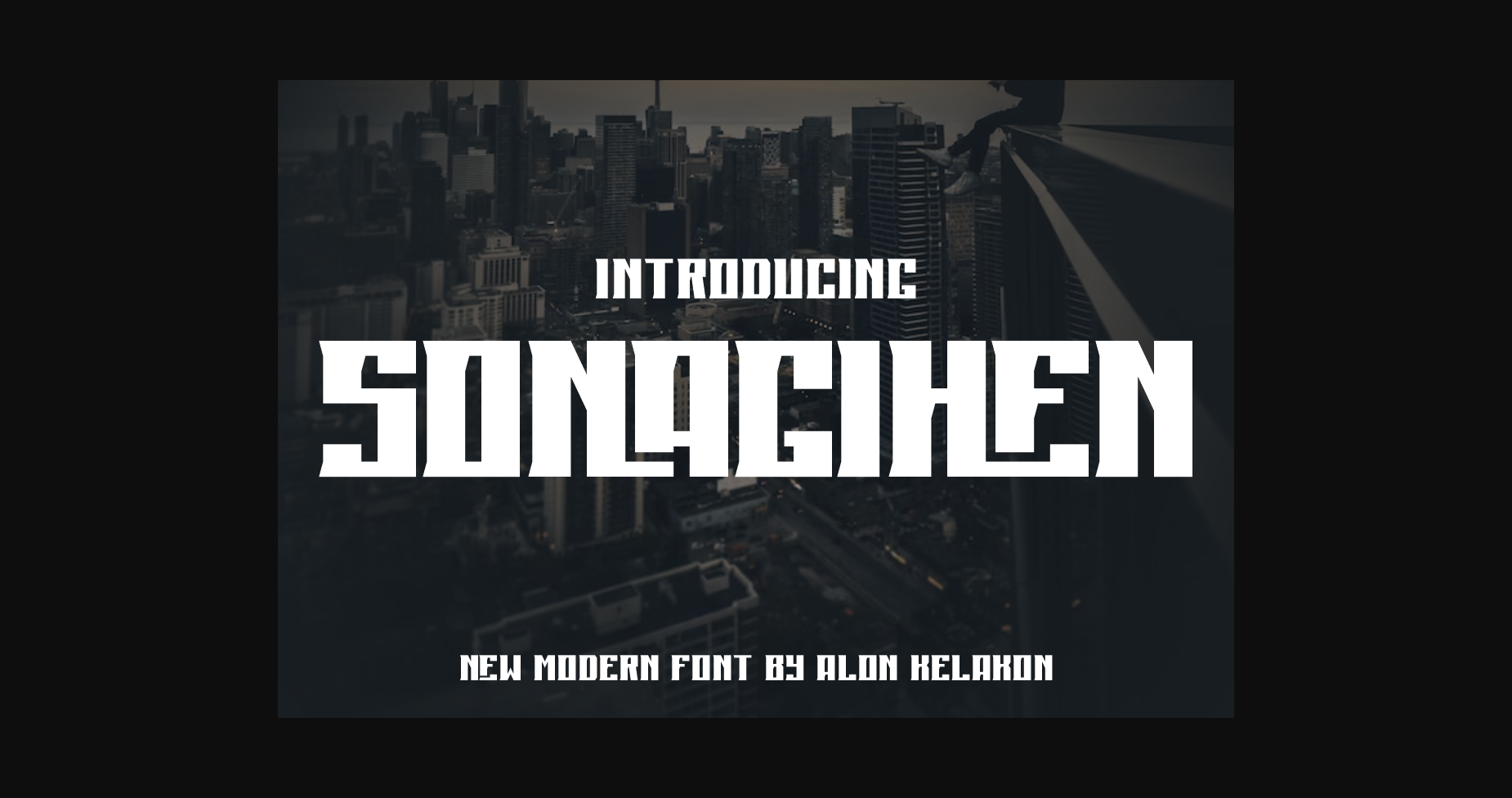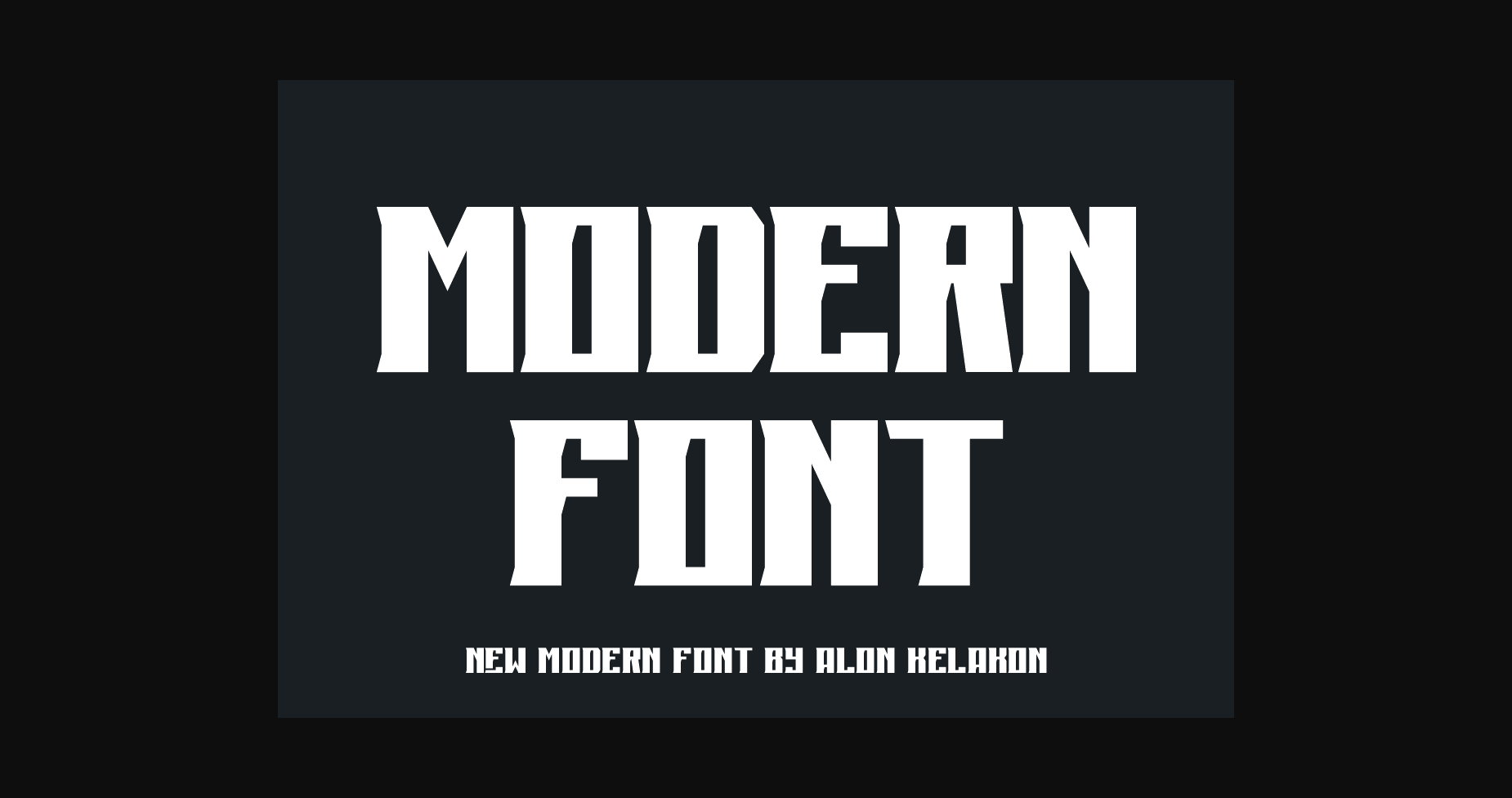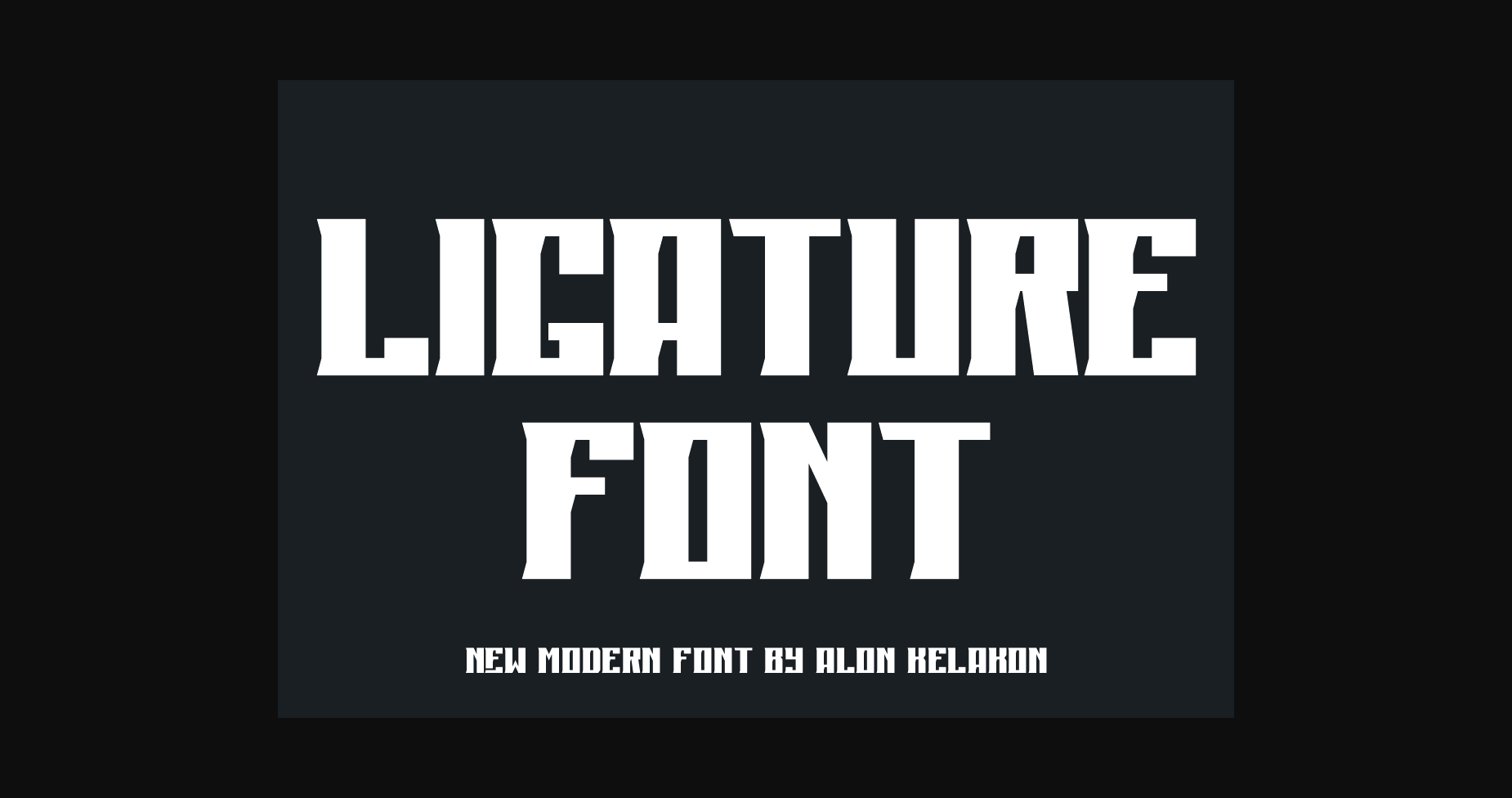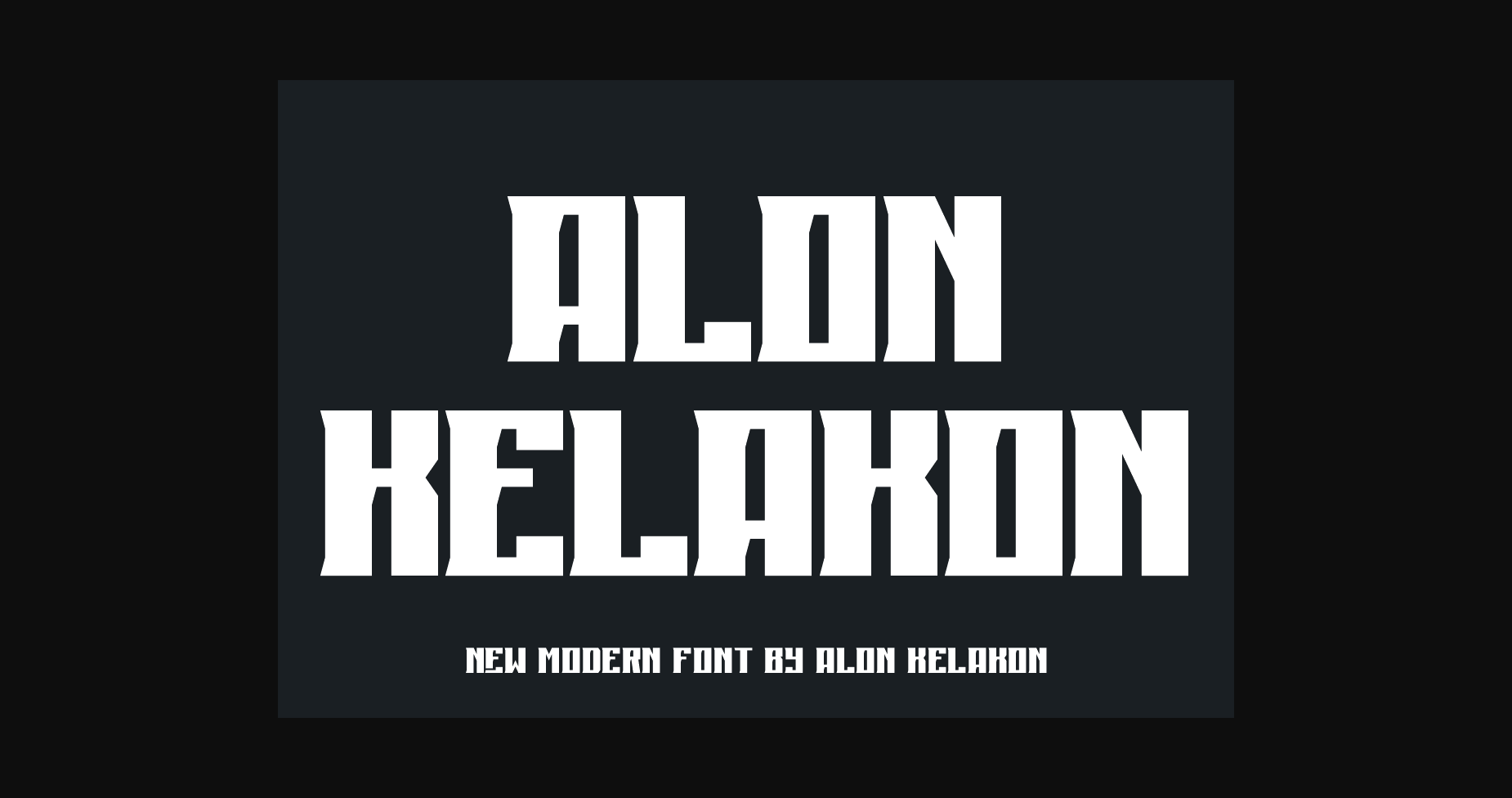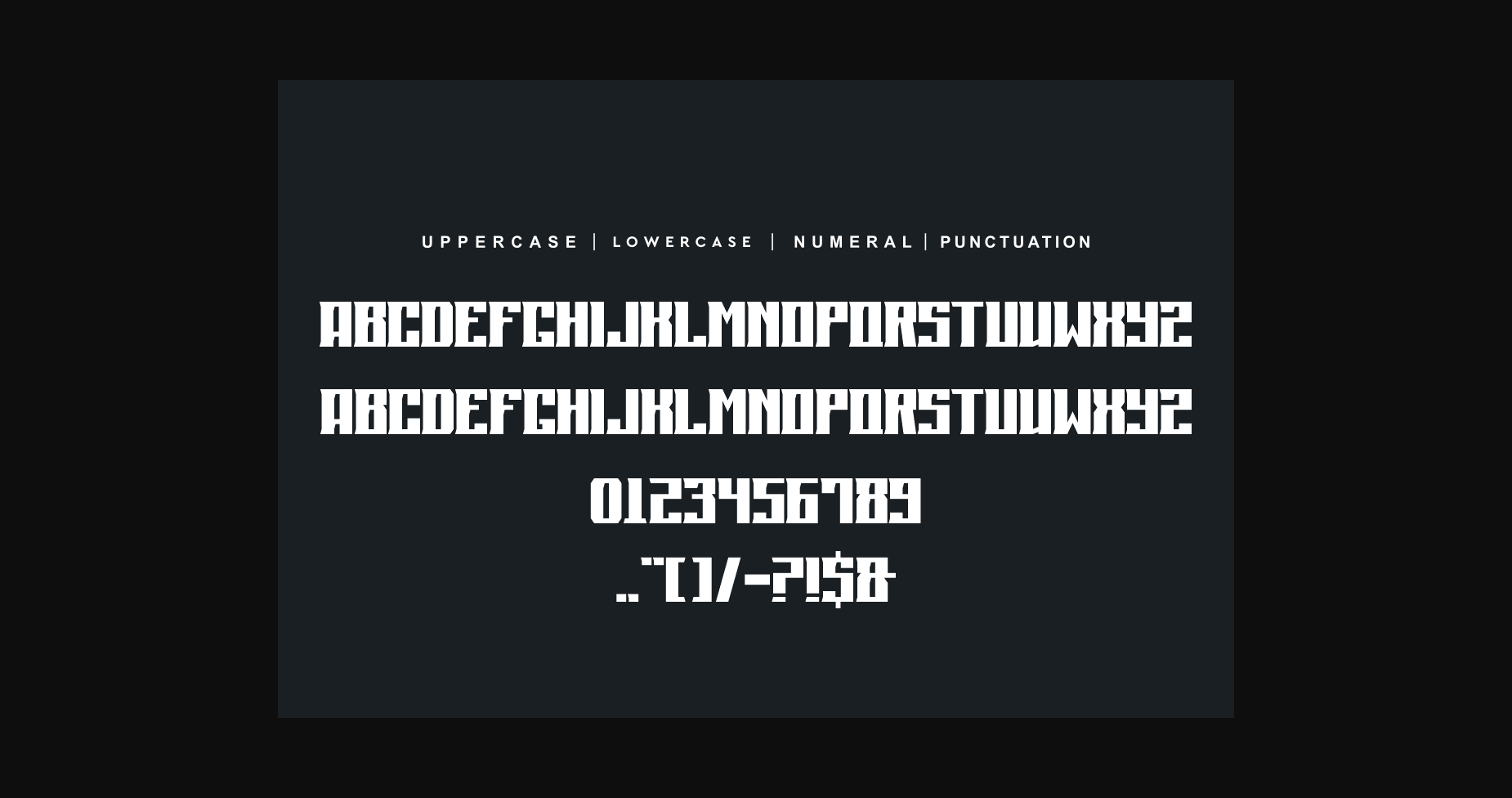
About Sonagihen Font
Sonagihen Font is unique . Ready to use for your design like labeling, clothing, movie sceen, poster, movie title, gigs, album covers, logos, and much more.